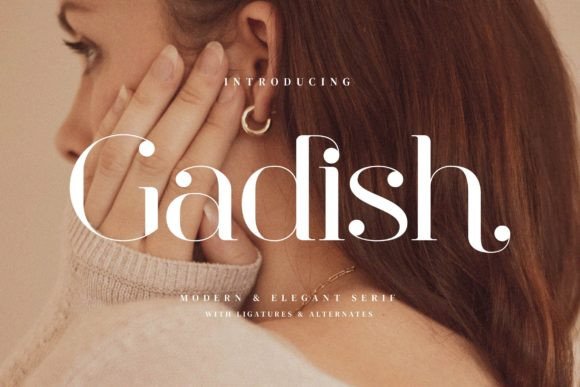
Gadish Font: A Stylish Serif Font for Modern Designs
In the world of typography, fonts play a crucial role in conveying the message and aesthetic of a brand. A well-designed font can elevate a brand’s identity and make it stand out from the competition. One such font that has gained popularity in recent times is the Gadish font. In this article, we’ll explore the features, benefits, and uses of the Gadish font, and why it’s a great choice for designers and brands looking for a stylish serif font.
What is Gadish Font?
Gadish is a stylish serif font, inspired by the famous minimalist logo. Its clean and elegant design makes it perfect for a wide range of design applications, from templates and brochures to videos, advertising branding, logos, and more. The font’s simplicity and sophistication make it an excellent choice for designers looking for a modern and versatile font.
Key Features of Gadish Font
- Stylish Serif Design: Gadish font features a stylish serif design that adds a touch of elegance to any design.
- Minimalist Inspiration: The font is inspired by the famous minimalist logo, making it perfect for designers who appreciate simplicity and clean design.
- Versatile: Gadish font can be used for a wide range of design applications, from print to digital media.
- Elegant and Sophisticated: The font’s elegant and sophisticated design makes it perfect for luxury brands, high-end products, and services.
Benefits of Using Gadish Font
Using Gadish font offers several benefits to designers and brands. Some of the benefits include:
- Unique Identity: Gadish font helps brands create a unique identity that sets them apart from the competition.
- Consistency: The font’s consistent design ensures that the brand’s message is conveyed clearly and effectively across different platforms.
- Flexibility: Gadish font can be used in various design applications, making it a versatile choice for designers.
- Timeless: The font’s classic design ensures that it remains relevant for years to come, making it a great investment for brands.
Uses of Gadish Font
Gadish font can be used in a variety of design applications, including:
- Templates: Use Gadish font to create elegant and sophisticated templates for presentations, reports, and more.
- Brochures: The font’s clean design makes it perfect for creating brochures that showcase a brand’s products or services.
- Videos: Gadish font can be used in video titles, subtitles, and more to add a touch of elegance to video content.
- Advertising Branding: The font’s stylish design makes it perfect for creating eye-catching ads that grab the audience’s attention.
- Logos: Gadish font can be used to create simple yet effective logos that represent a brand’s identity.
Tips for Using Gadish Font
Here are some tips for using Gadish font effectively:
- Use it with a contrasting background: Gadish font looks great with a contrasting background that makes it stand out.
- Experiment with font sizes: The font’s elegant design ensures that it looks great in various font sizes.
- Pair it with other fonts: Gadish font can be paired with other fonts to create a unique and visually appealing design.
- Use it consistently: Consistency is key when using Gadish font. Use it across all design applications to create a cohesive brand identity.
In conclusion, Gadish font is a stylish serif font that offers a wide range of benefits to designers and brands. Its elegant and sophisticated design makes it perfect for luxury brands, high-end products, and services. The font’s versatility, consistency, and timeless design ensure that it remains a great choice for designers looking for a modern and effective font.
- What is Gadish font?: Gadish font is a stylish serif font inspired by the famous minimalist logo.
- What are the benefits of using Gadish font?: The benefits of using Gadish font include creating a unique identity, consistency, flexibility, and timeless design.
- What are the uses of Gadish font?: Gadish font can be used in various design applications, including templates, brochures, videos, advertising branding, logos, and more.